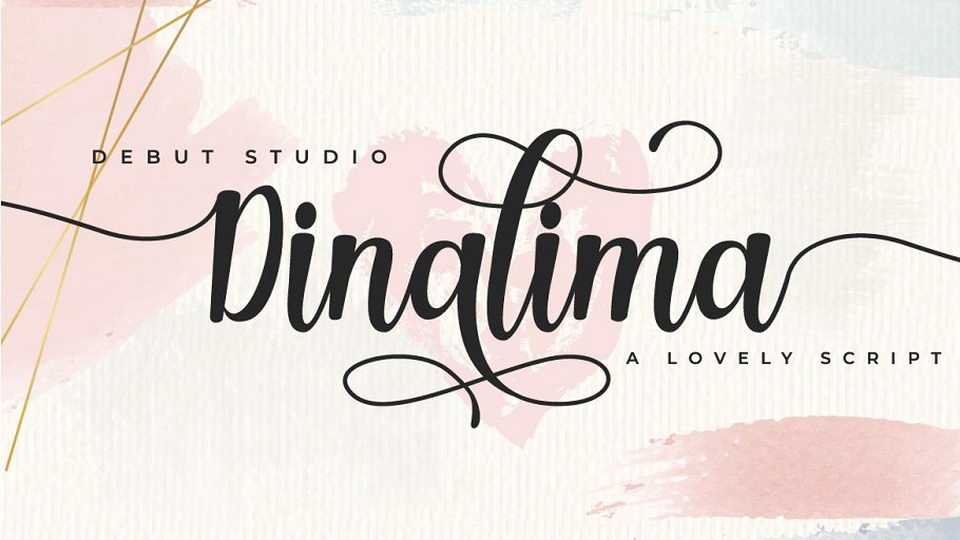
Download Dinalima font, a lovely modern script with much stylistic alternate option. Dinalima Script font is suitable for wedding invitation, poster, quote, label, card name, and other stuff.
Designer: Debut Studio